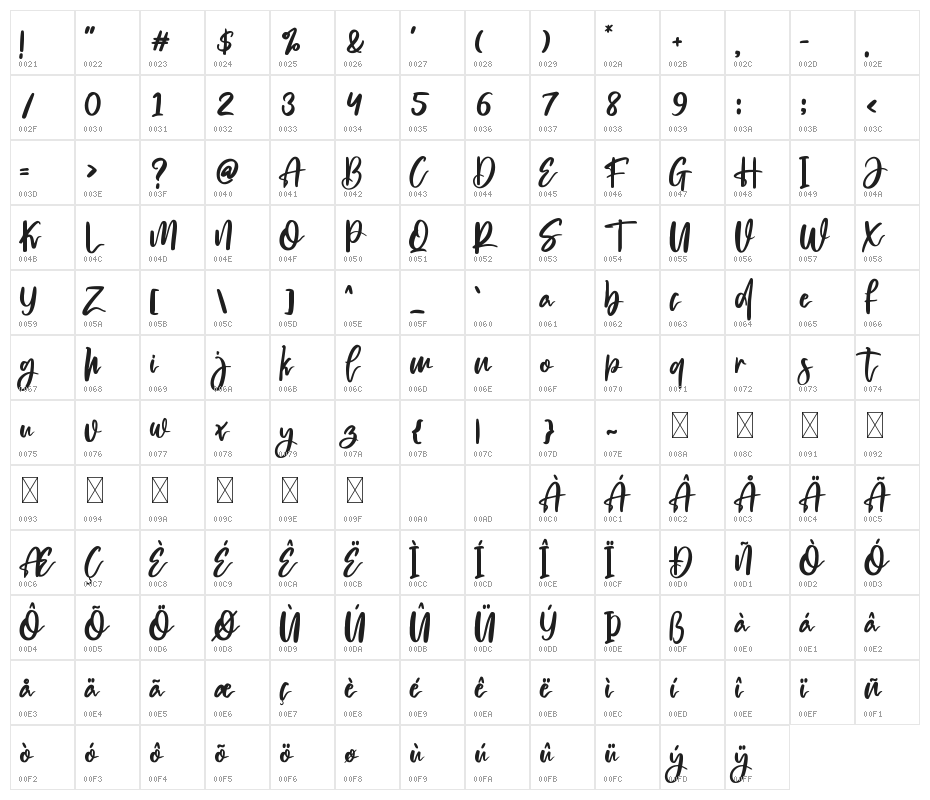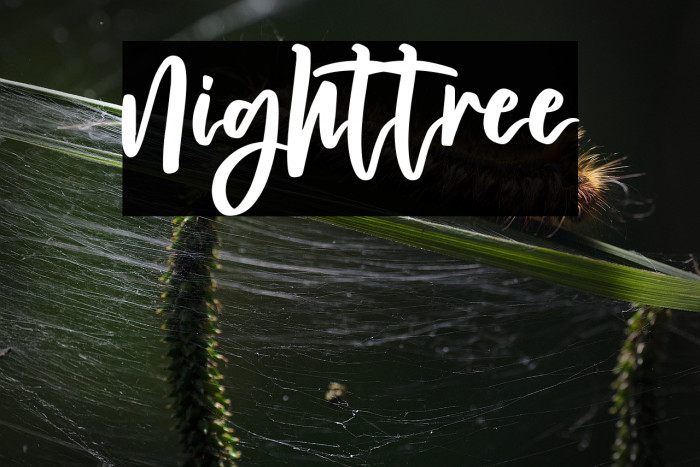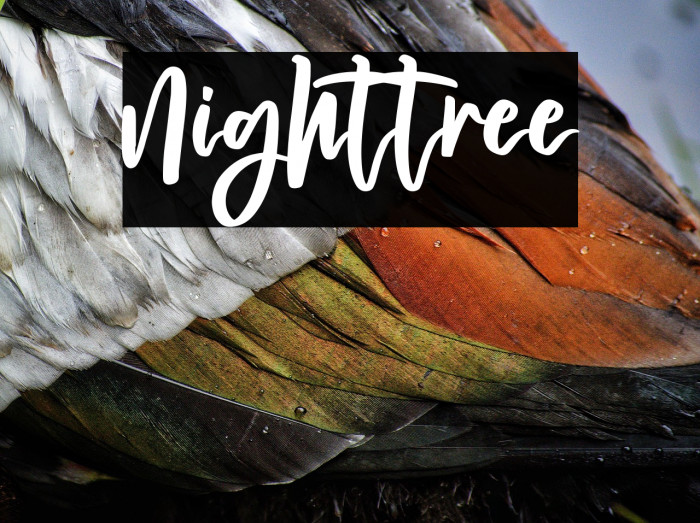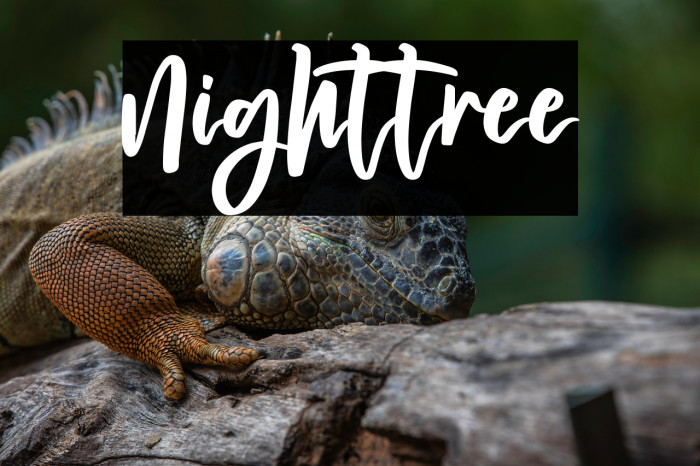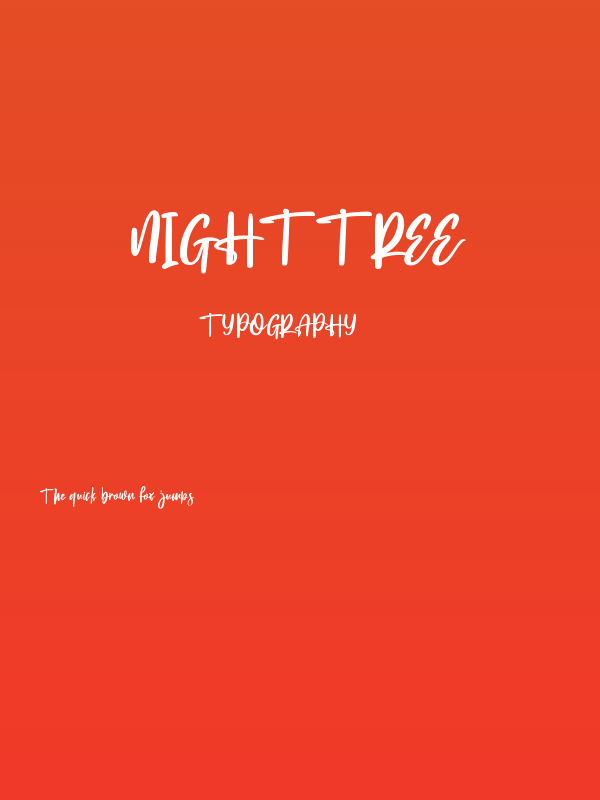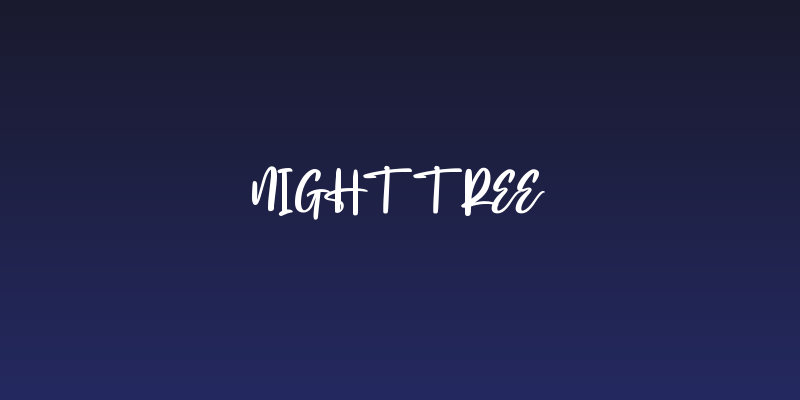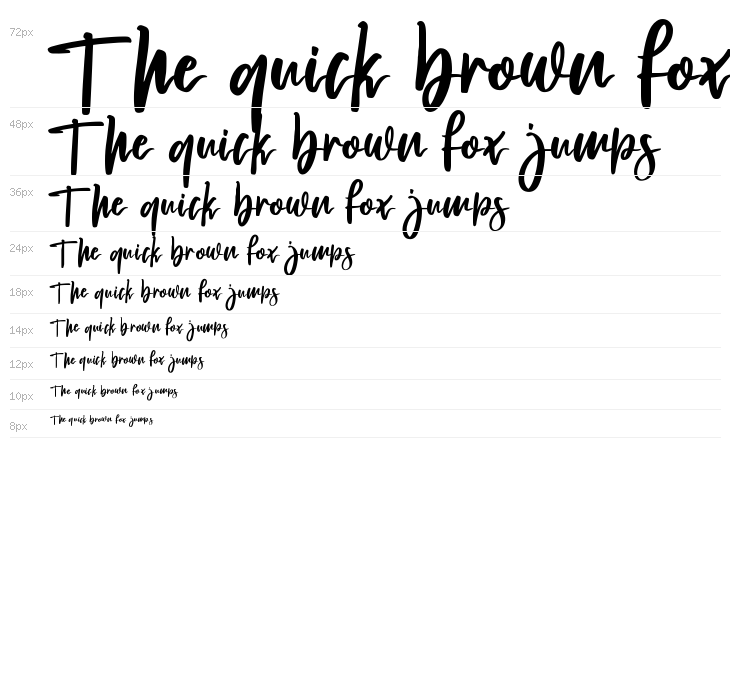
Nighttree Font
Nighttree Description
A bold, handwritten script font with a casual and flowing style, featuring connected letters and a playful appearance.
| Proposed Projects | Greeting cards, invitations, branding, social media graphics. |